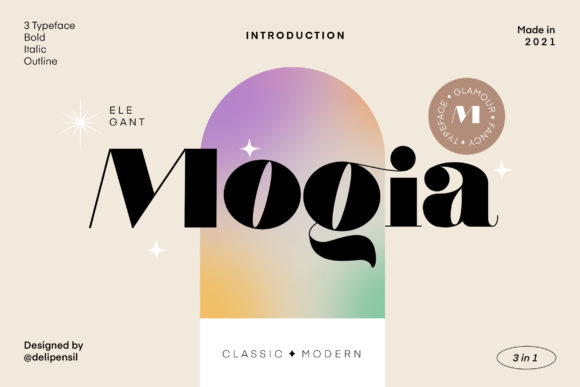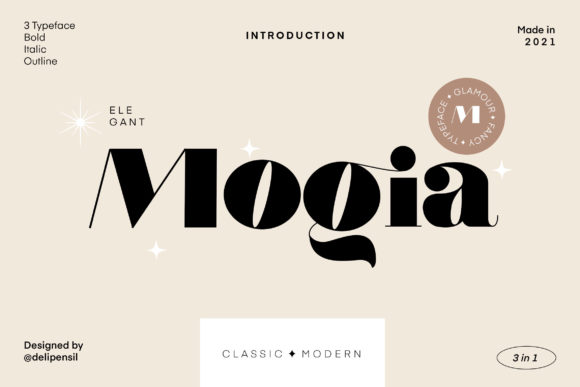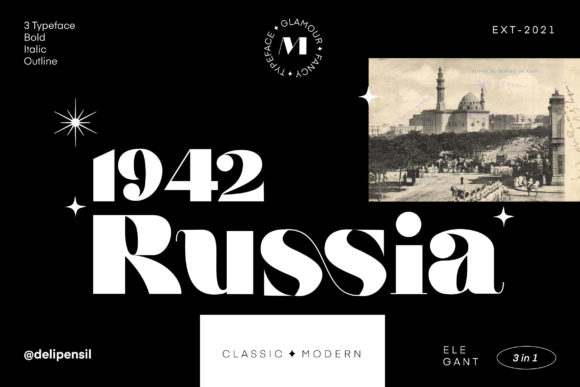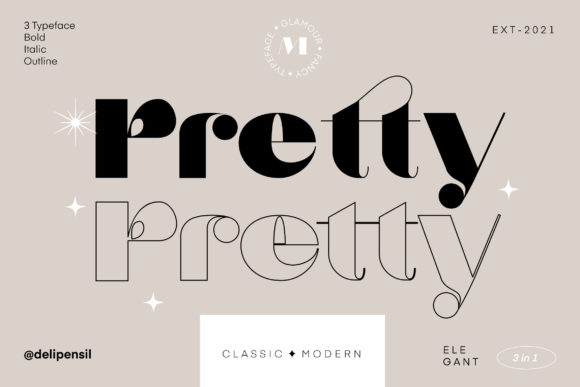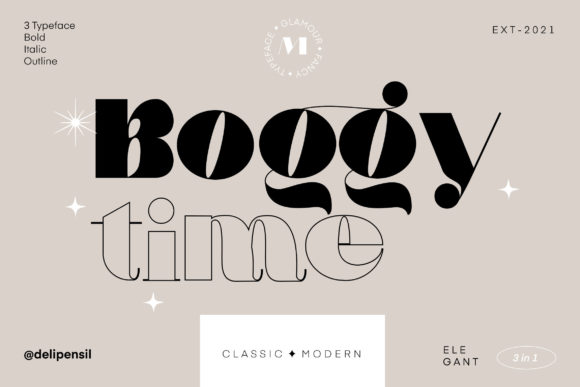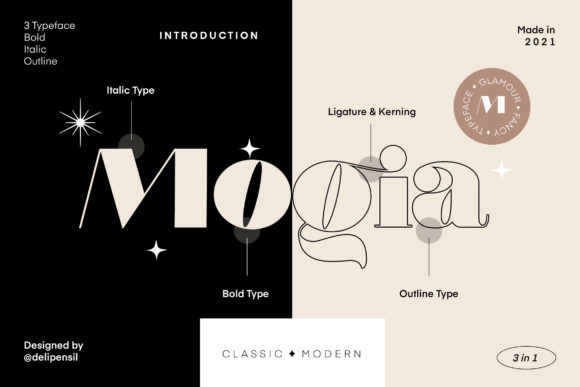
Introduction to Mogia Font
Have you ever stared at a blank canvas, waiting for inspiration to strike? The blank page can be intimidating, but it’s exactly this moment of creative uncertainty that makes the discovery of the perfect font so exhilarating. For designers, the right font can be the difference between a mediocre project and a masterpiece. And, if you’re anything like us, you’re always on the lookout for that one font that can elevate your creative project to the next level.
Enter the Mogia Font, a modern, bold, and elegant serif font that’s sure to capture the essence of your design. With its high-quality design and versatility, this font is perfect for a wide range of applications, from logos and wedding invitations to headings and signage.
Key Features of Mogia Font
- Supports various languages and script styles
- Includes a wide range of characters, including uppercase and lowercase letters, numbers, and special symbols
- Perfect for designers and artists looking for a unique and versatile font for their next project
Honest Review: Mogia Font
As a designer, I’m always on the lookout for high-quality design resources that can elevate my creative projects. Recently, I stumbled upon the Mogia Font, and I’m excited to share my honest review with you.
What works well: ✨ The Mogia Font is incredibly versatile, with a range of styles and weights that can be used for both digital and print designs. The font is also highly customizable, allowing me to tweak the spacing and layout to suit my project’s needs.
- High-quality design: The Mogia Font is a high-quality design resource that’s perfect for creative projects.
Limitations: ⚠️ While the Mogia Font is an excellent choice for many designers, it may not be suitable for projects that require a highly customized font. Additionally, the font’s range of styles and weights may be overwhelming for some users.
Overall impression: The Mogia Font is a fantastic design resource that’s perfect for designers who want a high-quality, versatile font for their creative projects. While it may have some limitations, the benefits far outweigh the drawbacks, making it an excellent choice for designers of all levels.
Mogia Font
Tips for Getting the Most Out of Mogia Font
To get the most out of the Mogia Font, experiment with different font sizes, colors, and combinations. You can also use it in conjunction with other design elements to create a unique and eye-catching visual identity.
The Mogia Font is suitable for a wide range of creative projects, including branding, packaging, and advertising materials. Its high-quality design and transparent background make it an excellent choice for designers looking to create professional-looking designs without breaking the bank.